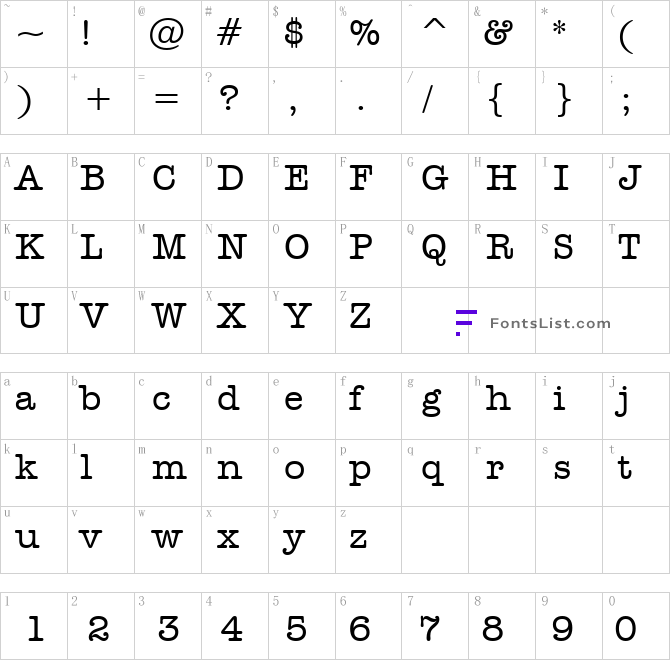
- Font Name:AmerType Md BT
- Subfamily:ITC American Typewriter Medium, Typewriter 911
- Full Name:American Typewriter Medium BT
- PostScript:AmerTypewriterITCbyBT-Medium
American-Typewriter-Medium-BT.ttf is a very beautiful artistic font, American-Typewriter-Medium-BT.ttf is widely used in the design and printing of various books and pictures,American-Typewriter-Medium-BT.ttf has a strong visual impact,American-Typewriter-Medium-BT.ttf is a commonly used font in newspapers, magazines and books, and is used in posters, e-commerce Poster design, store design, logo design, font design and other fields.American-Typewriter-Medium-BT.